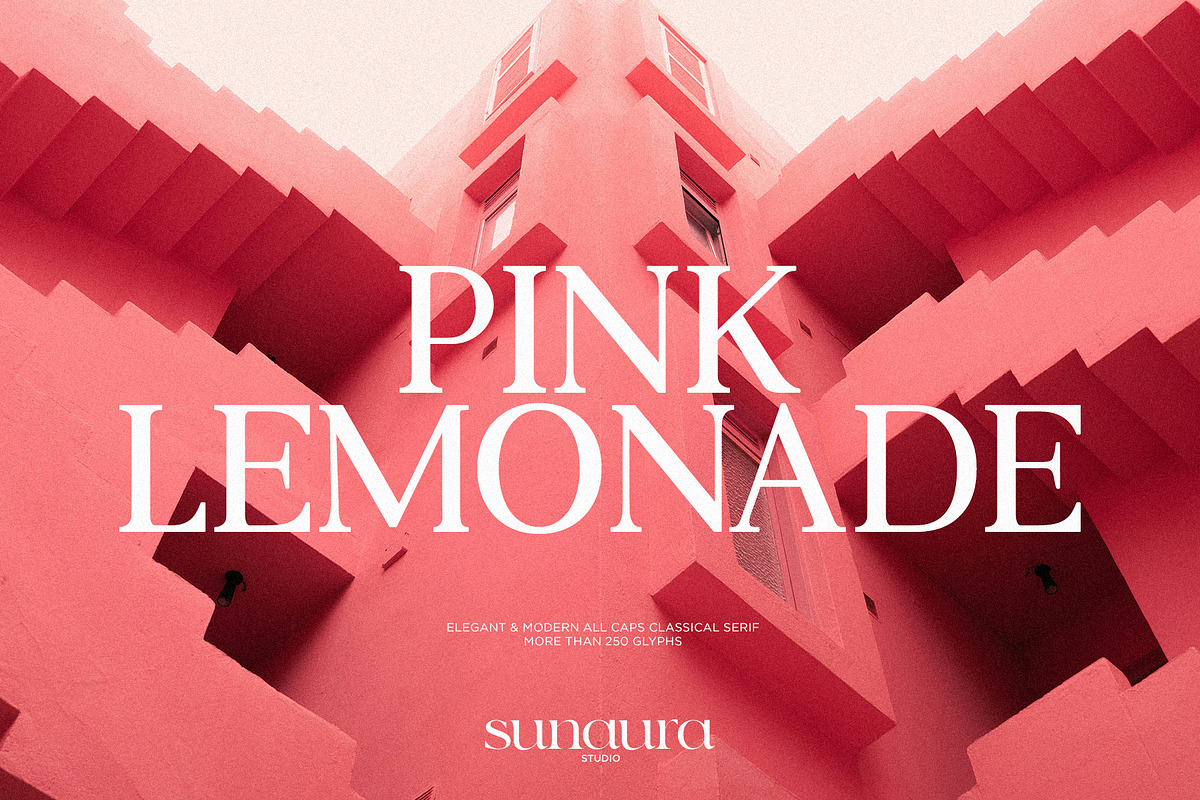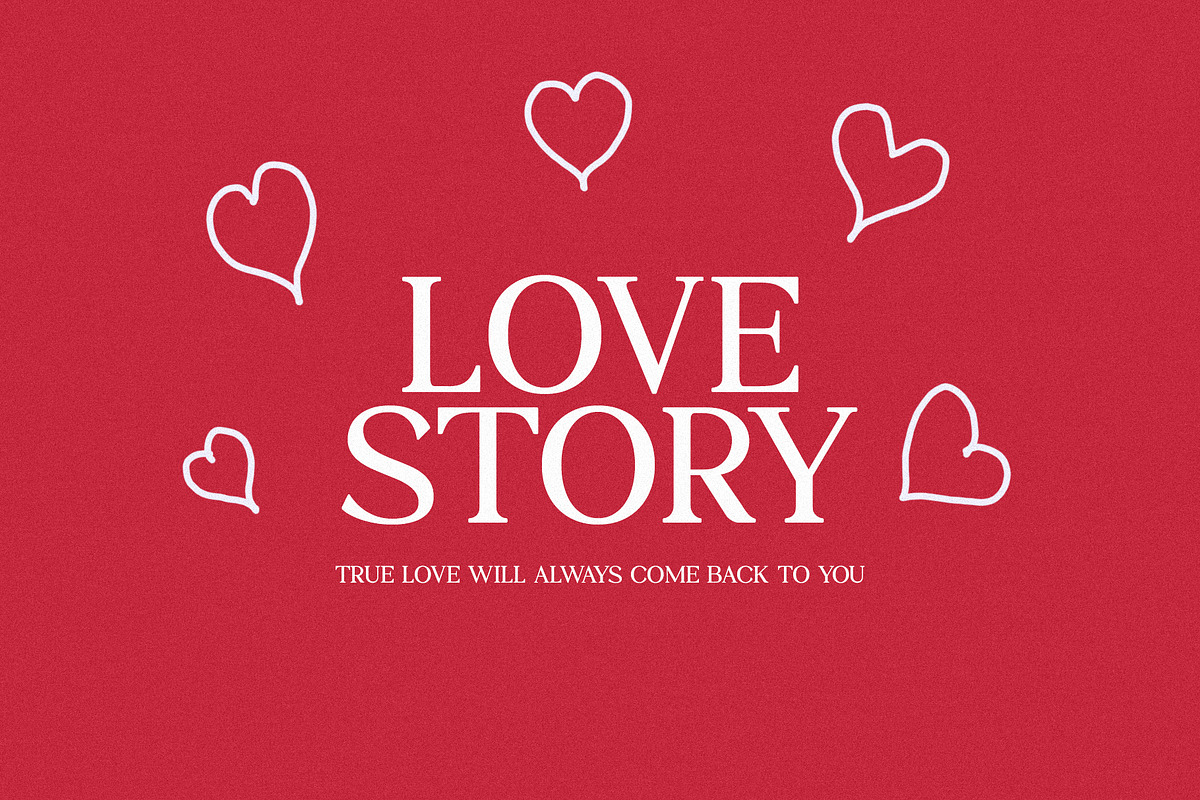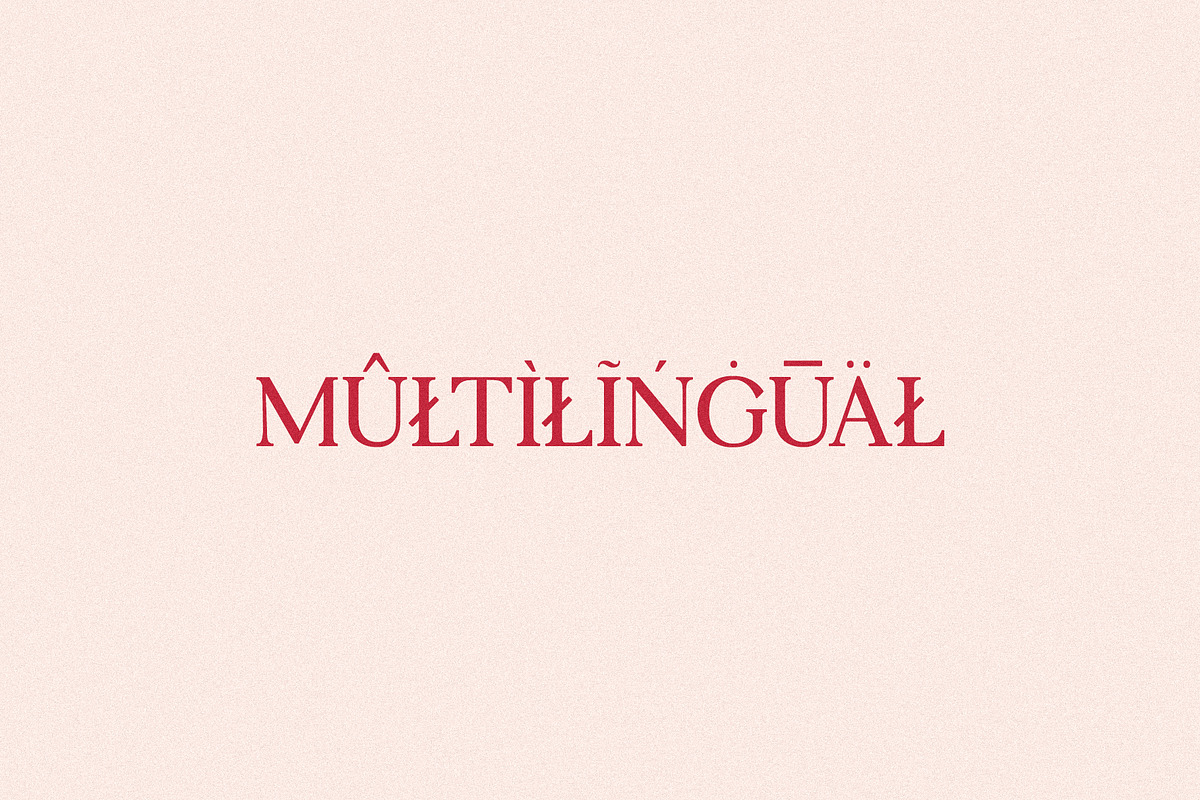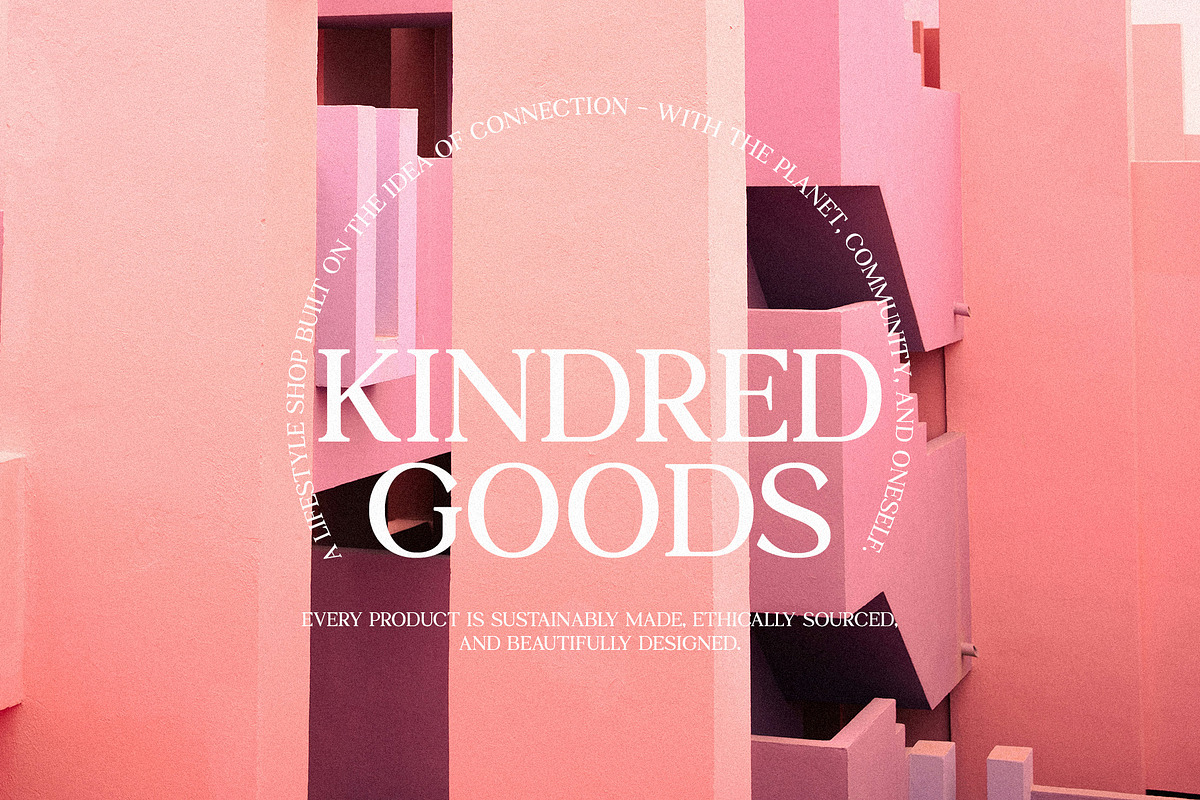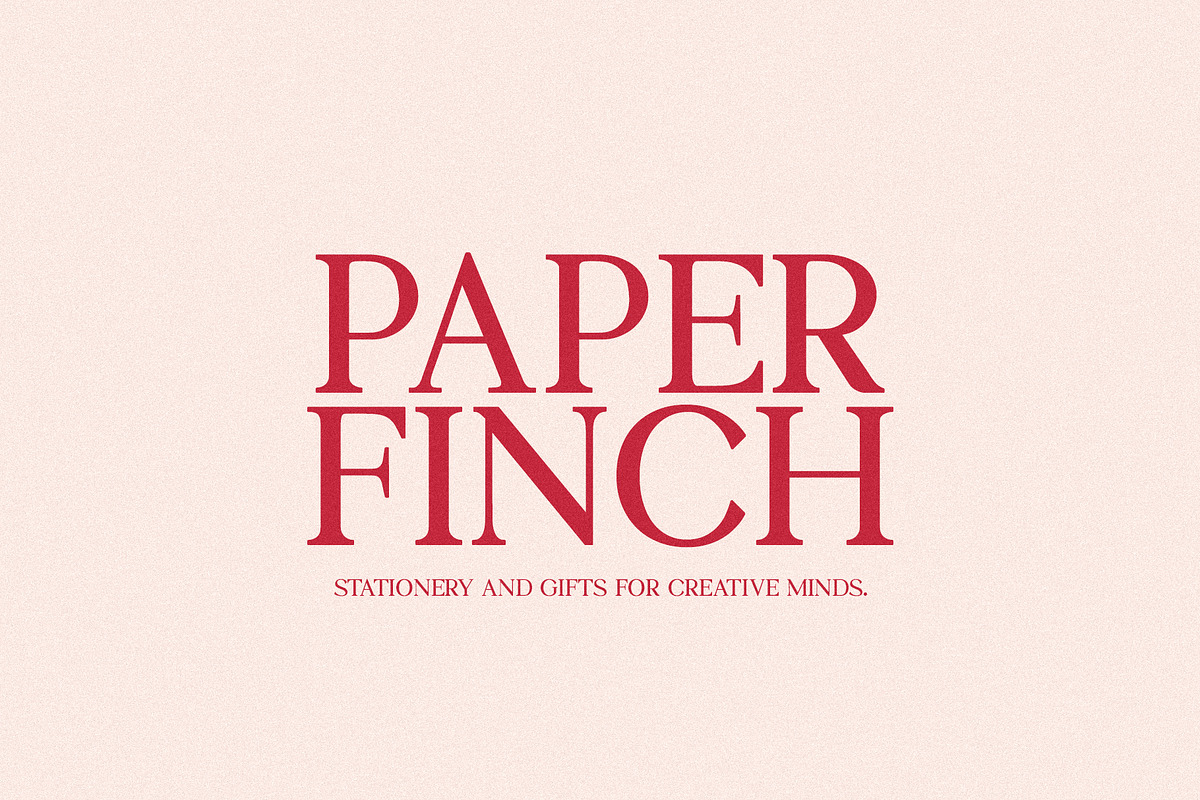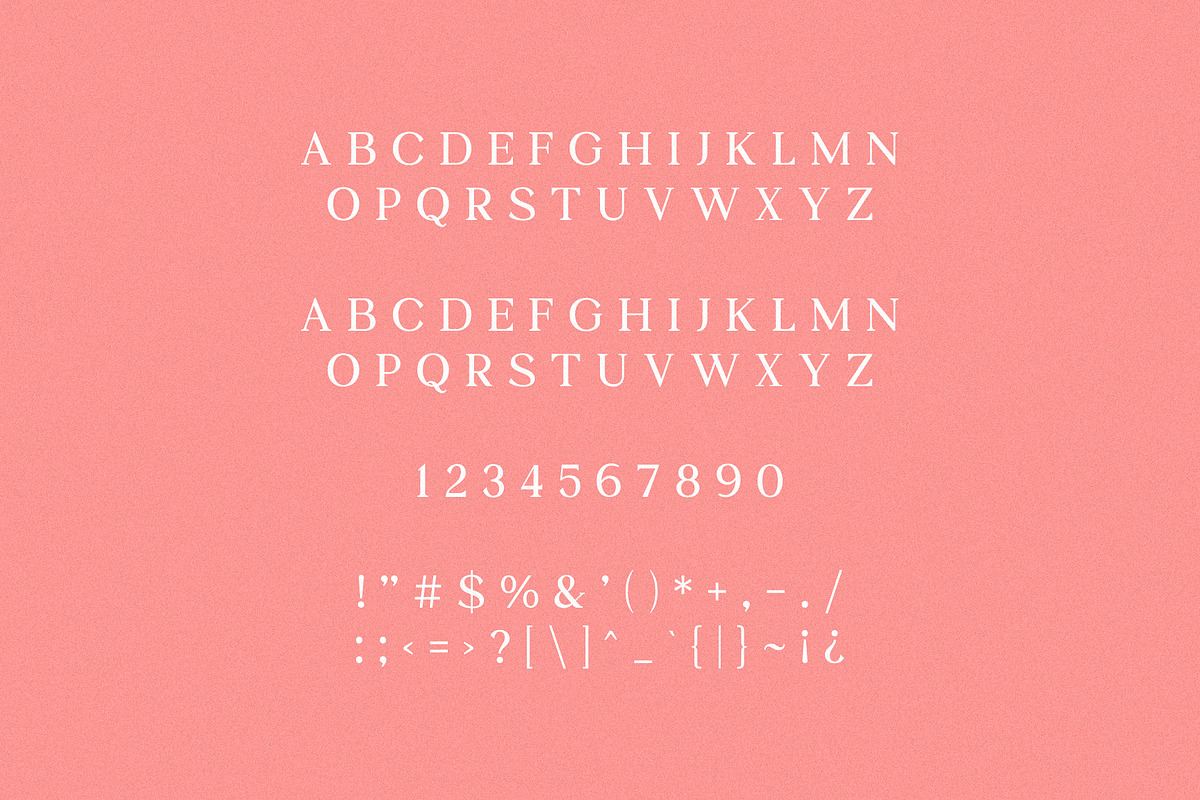
PINK LEMONADE - Elegant Serif
PINK LEMONADE is a bold, all-caps serif typeface that blends classic structure with a playful, modern edge. Its sharp serifs and confident proportions give it a timeless, editorial feel, while the name hints at something sweeter, brighter, and a little unexpected. Designed to stand out, PINK LEMONADE shines in headlines, logos, posters, and branding - anywhere you want elegance with attitude. It’s refined but not stiff, stylish without trying too hard, and unapologetically eye-catching.